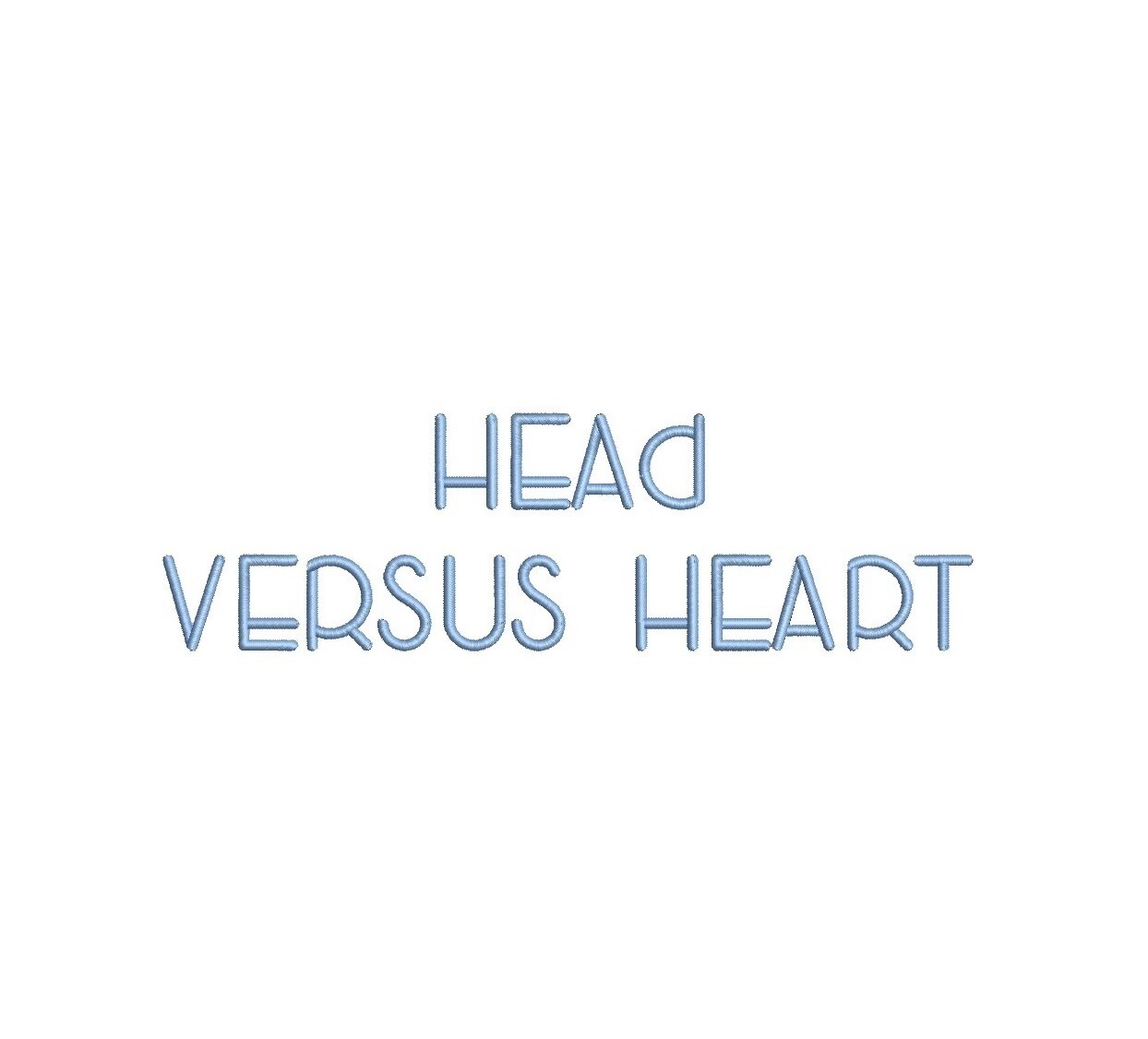
Discover the power struggle of Head Versus Heart Regular ESA font - a unique typeface where intellect meets emotion. This thought-provoking and expressive font adds depth to your designs. Crafted with meticulous attention to detail, this premium font guarantees a seamless and enjoyable design experience. Compatible with Wilcom Studio e4.5.6 and Hatch 3 versions and up, it ensures smooth embroidery creation. Whether it's artistic projects, meaningful text, or emotional branding, Head Versus Heart Regular ESA font captures the essence of conflicting feelings. Embrace its evocative allure and create designs that resonate with the human experience. Don't miss out; let your creations ignite both the mind and soul.